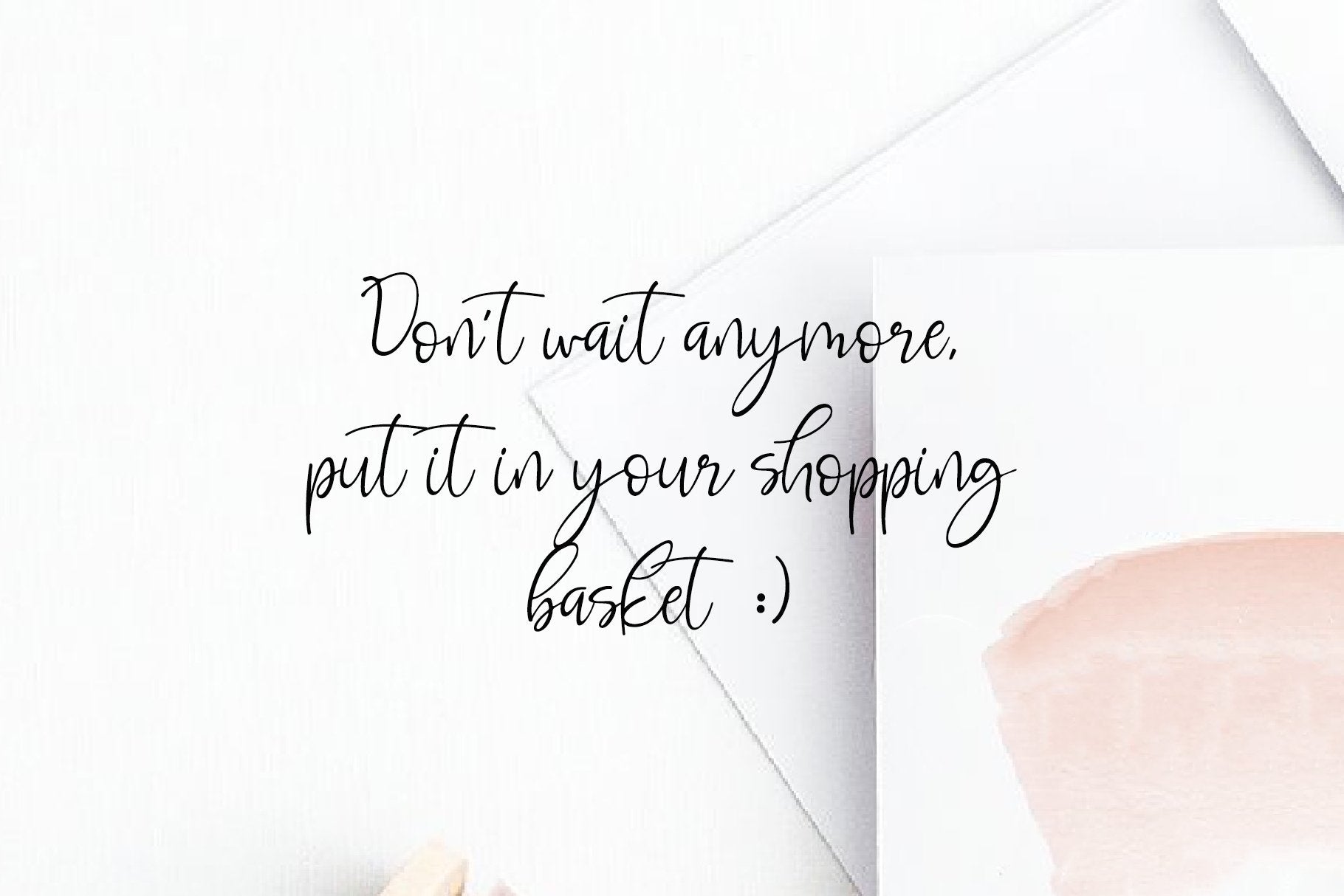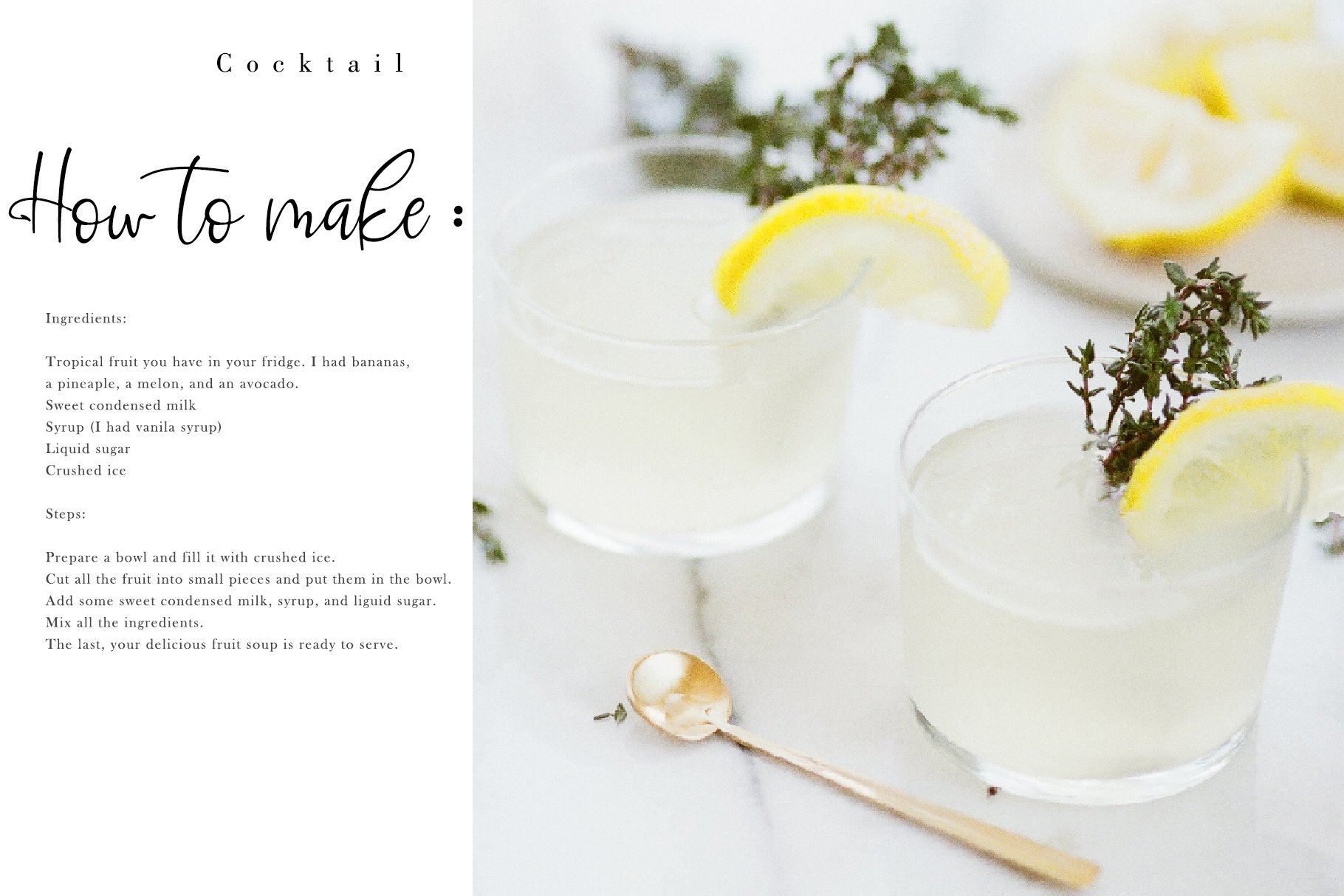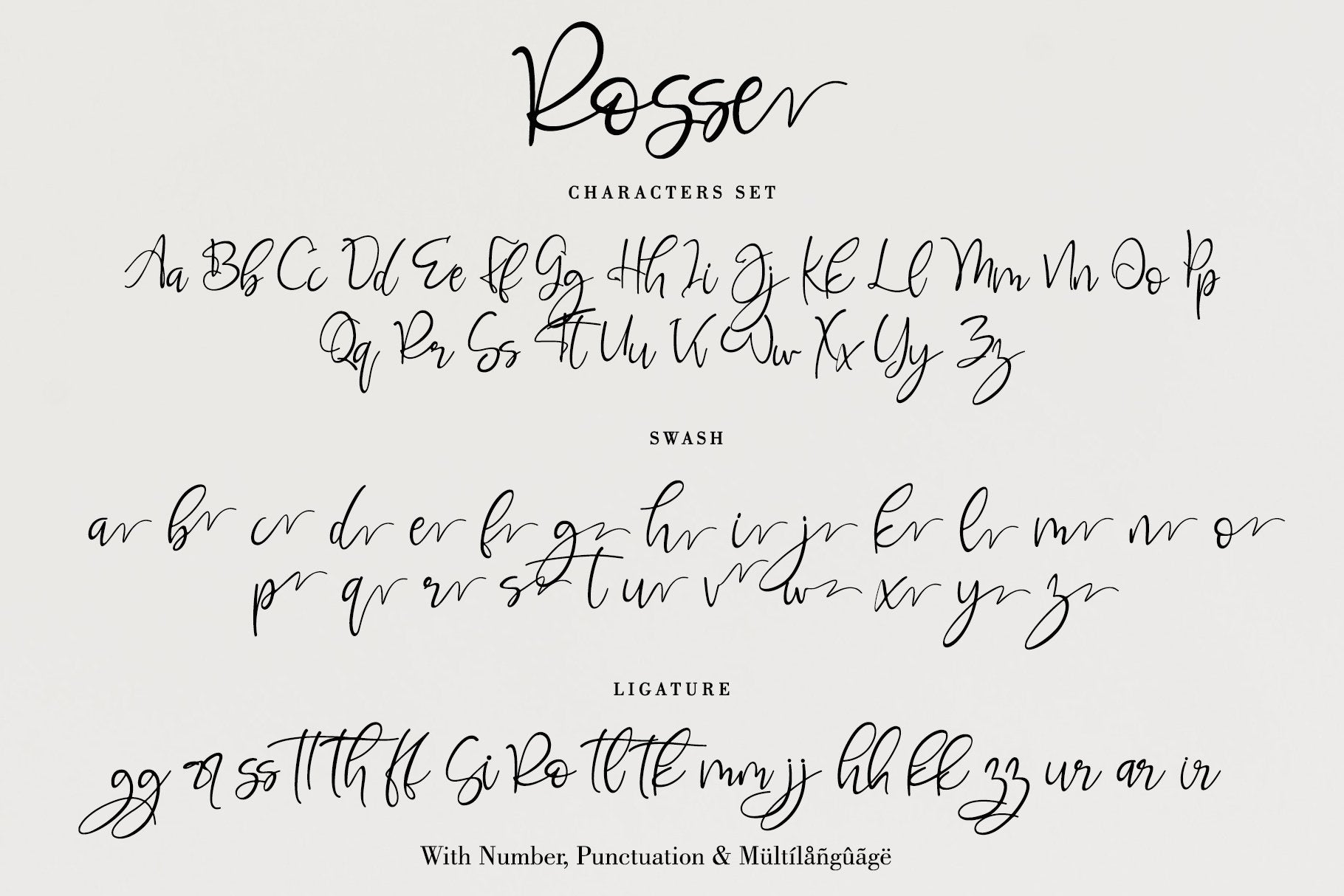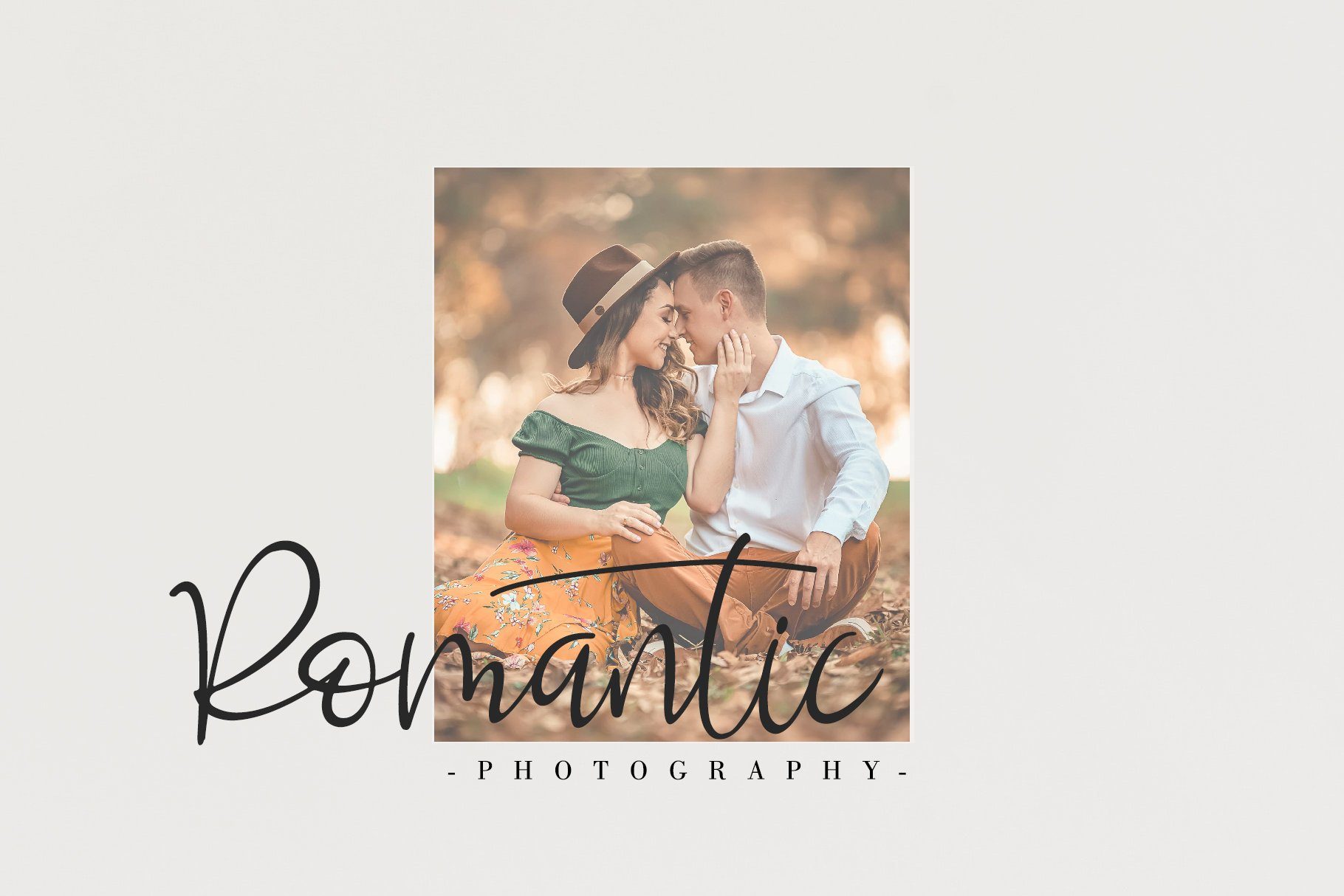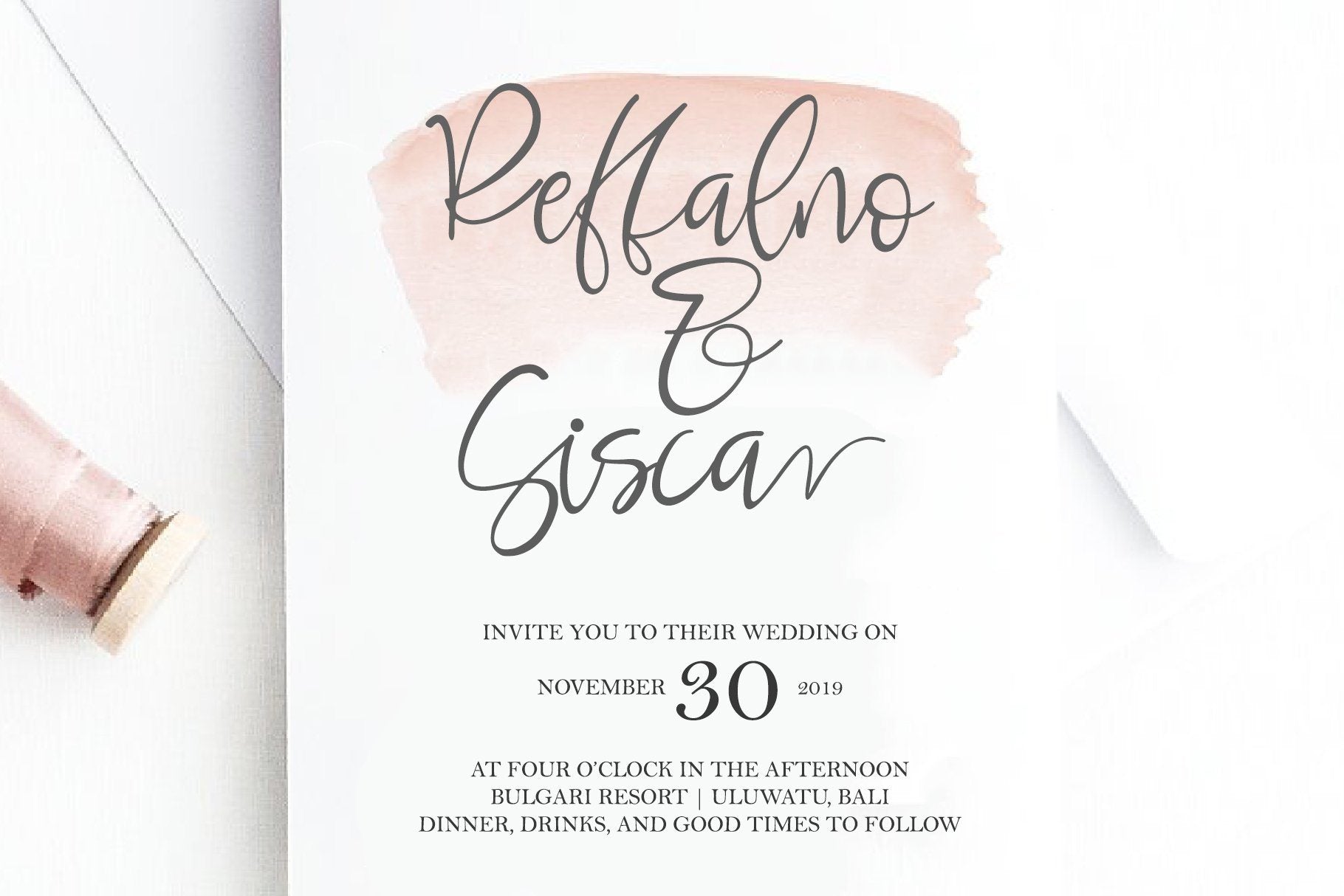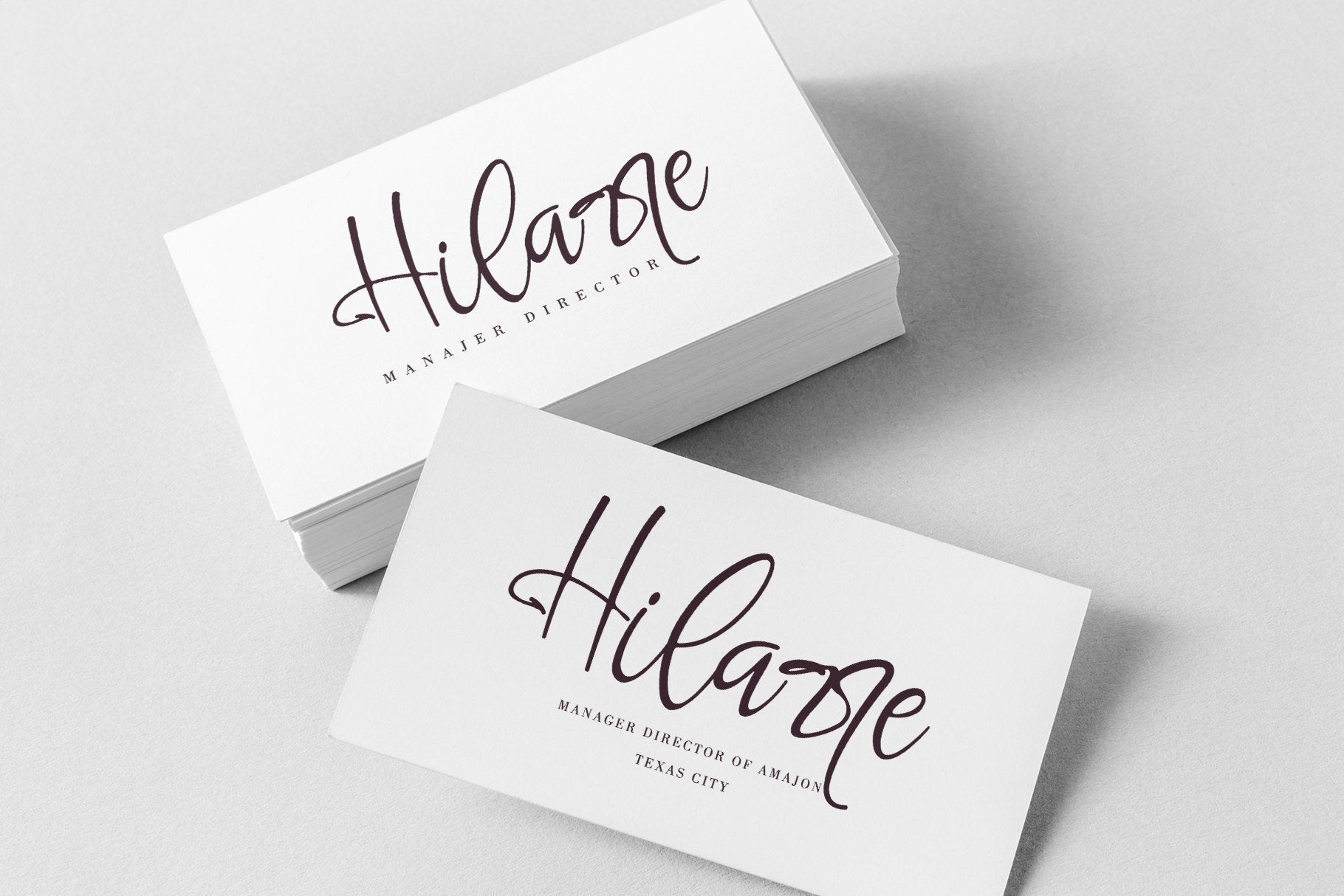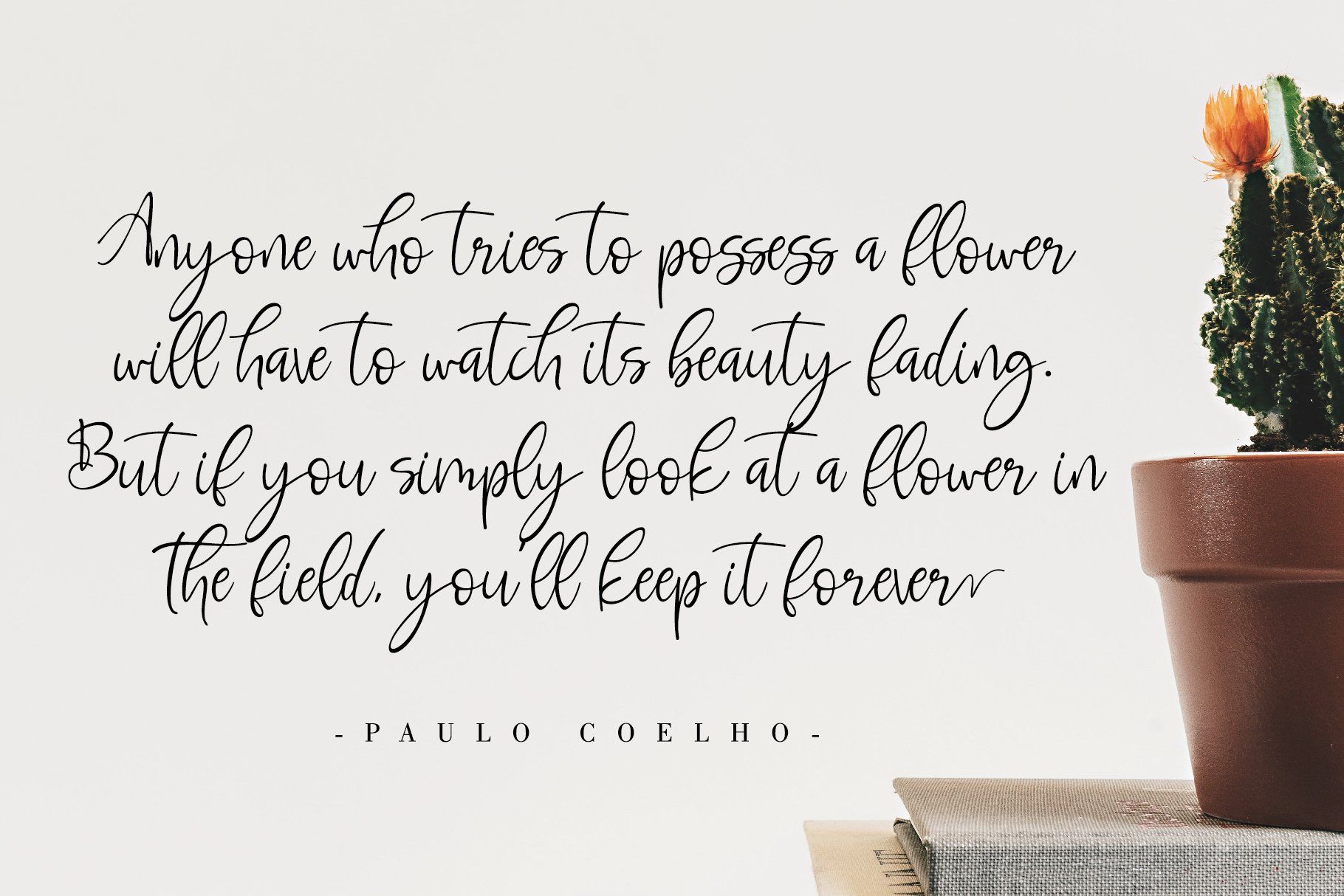
Rosse
About Rosse
Rosse features an irregular baseline, making it the perfect font to give your designs a fun and unique feel! Thanks for checking out my store, and feel free to get in touch if you have any questions!  Features : Upper Case & Lowercase Numerals Punctuations (OpenType Standard) Accents (Multilingual characters) Ligatures, Swash Works on PC & Mac Simple installations Accessible in the Adobe Illustrator, Adobe Photoshop, Adobe InDesign, even works on Microsoft Word. don’t wait anymore, put it in your shopping basket 🙂 and follow me, because there will be many promos! Our other products : BEST SELLER JENNIE BLACK PINK SIGNATURE ANDORA BRIGITTA HEANFFE EIFFEL IN LOVE ( FONT TRIO) BLACK PINK SUMMER HONG KONG ANGEL MALEFICENT California Street BESTOWENS FAMILY